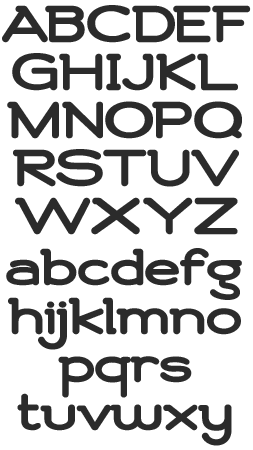
LHF Roper Similar to architect's Speedstyle but with modern touches. Ideal for modern logos and designs. Use lowercase for a friendly appearance and uppercase for a more utilitarian appeal.